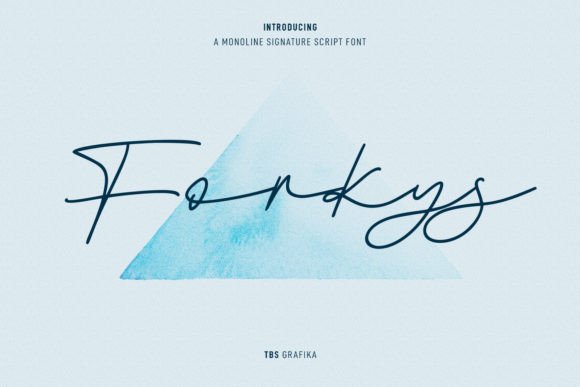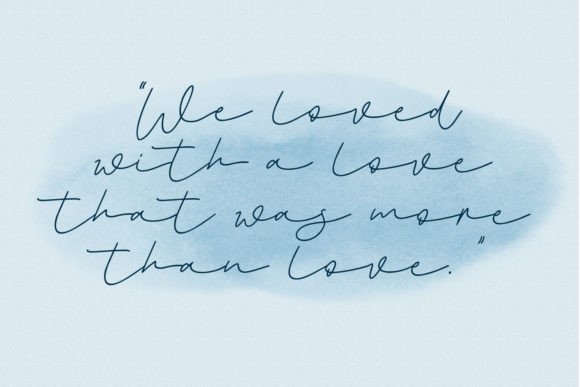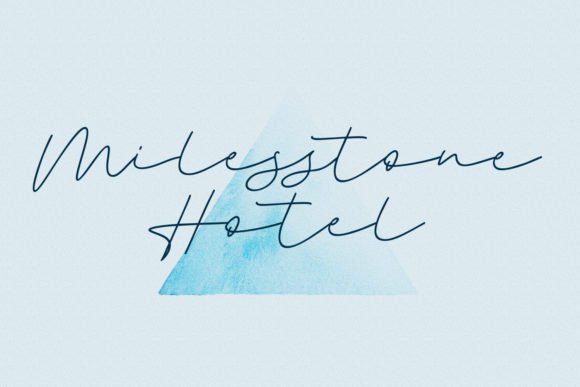
About Forkys Font
Forkys is a casual and fun script font. Its natural and unique style makes it incredibly fitting to a large pool of designs. The only limit is your imagination!